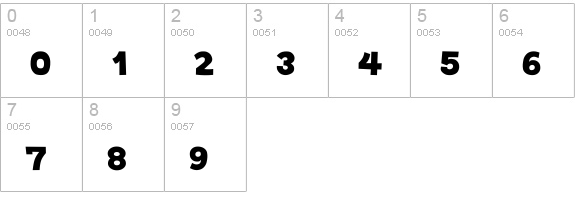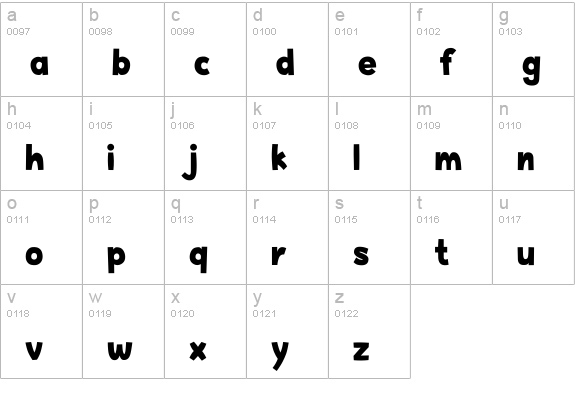
Happy Hell Font Details
Introducing Happy Hell, a bold and vibrant font that is sure to bring a touch of playful mischief to your designs. This unique typeface combines elements of whimsy and rebellion, resulting in a font that is both fun and edgy. With its bold and exaggerated letterforms, Happy Hell demands attention and adds a burst of energy to any project. But what makes Happy Hell even more exciting is that it is available for free! Yes, you read that right. This fantastic font can be freely downloaded at FontsMarket.com, allowing designers and creatives to unleash their imagination without breaking the bank. Whether you're working on a poster, logo, or social media graphics, Happy Hell will bring a distinct and captivating look to your work. The characters of Happy Hell are meticulously designed to convey a sense of playful chaos. Each letter is carefully crafted with exaggerated curves and sharp angles, creating a dynamic and lively visual impact. The font also features unique ligatures and alternates that add even more versatility to your designs, allowing you to create eye-catching and unconventional typography. Happy Hell is perfect for a variety of projects, from children's books and comic strips to album covers and event posters. Its bold and expressive nature will instantly grab attention and leave a lasting impression on your audience. Whether you're looking to add a touch of quirkiness to your designs or want to convey a rebellious spirit, Happy Hell is the ideal choice. So why wait? Download Happy Hell for free at FontsMarket.com and unleash your creativity with this captivating font. Let your designs stand out from the crowd and bring a touch of joyful mischief to your projects. With Happy Hell, you have the power to create bold and unforgettable designs that will leave a lasting impact on your audience.